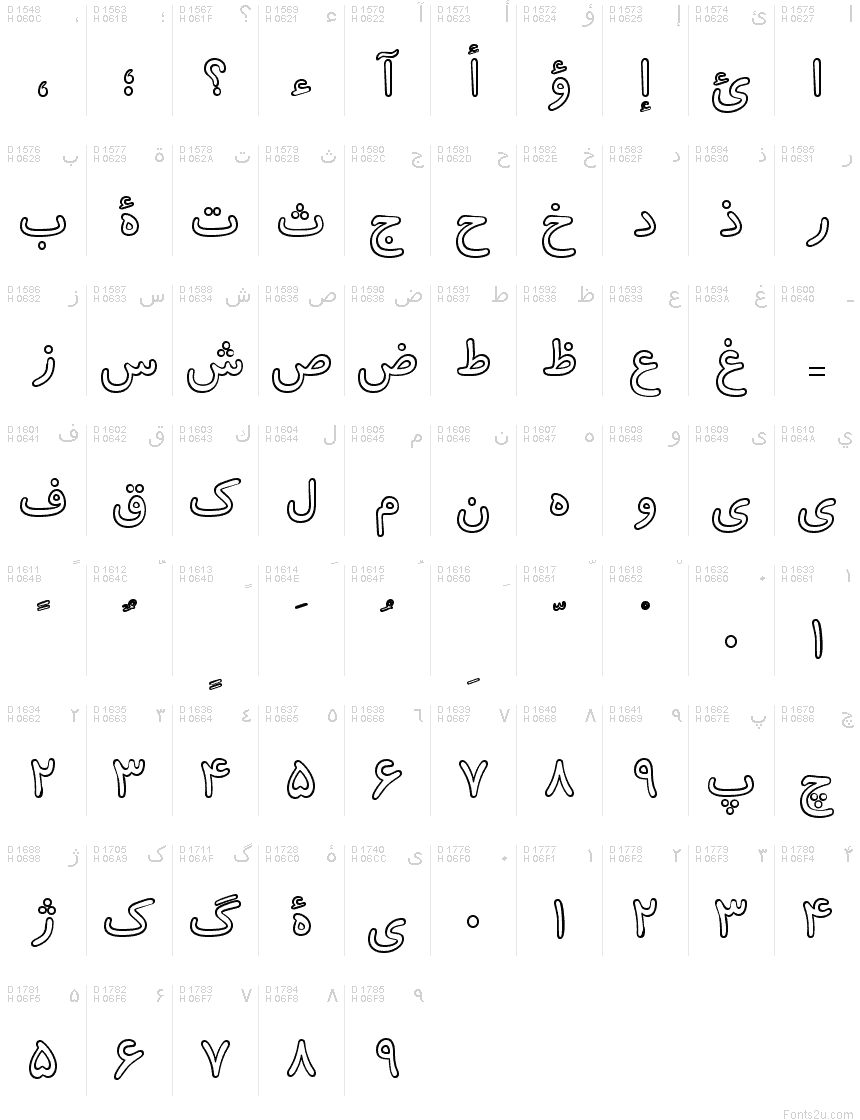
B Koodak Outline, a free outlined Arabic font by Borna Rayaneh, carries a friendly, handwritten mood with soft curves and open letterforms that feel light rather than formal. The letters have a playful bounce and a rounded, schoolbook rhythm, so the style reads warm and approachable even with the airy outline treatment.
This free font fits children's book covers, educational posters, packaging, greeting cards, and short branding where Arabic lettering should feel easygoing and human. It also works well for title lines and brief callouts, because the outlined drawing keeps the forms lively while leaving plenty of visual space around them.
B Koodak Outline